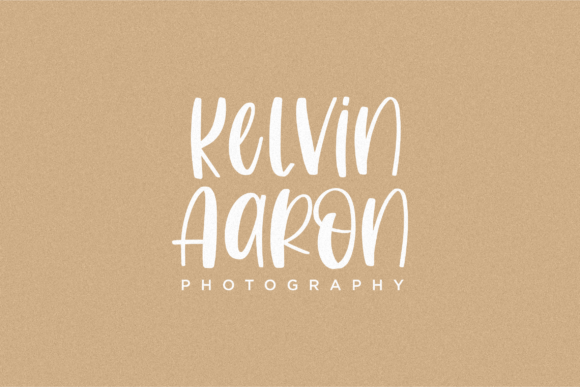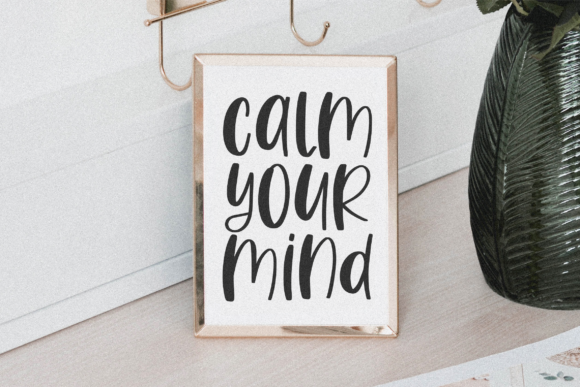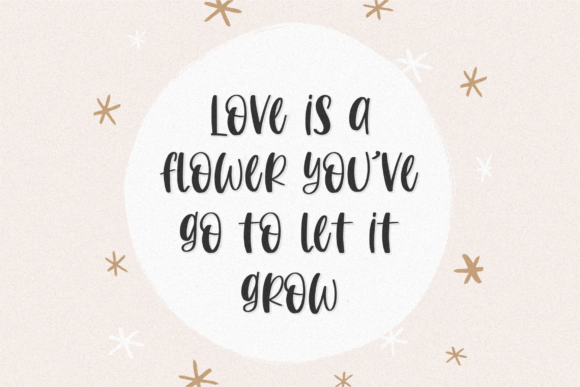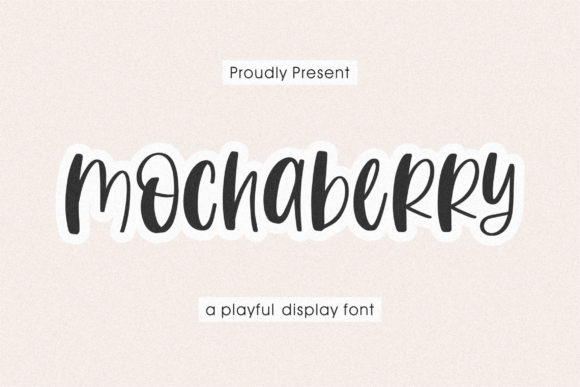
Introduction to Mochaberry Font
Mochaberry is a simple, quirky and adaptable handwritten font.
Its informal style and casual vibe will make this font a go-to choice for each of the creations that require a relaxed touch .
Mochaberry Font offers exceptional quality and versatility, making it a valuable addition to your design toolkit. Whether you’re creating for personal projects or commercial use, Mochaberry Font delivers professional results.